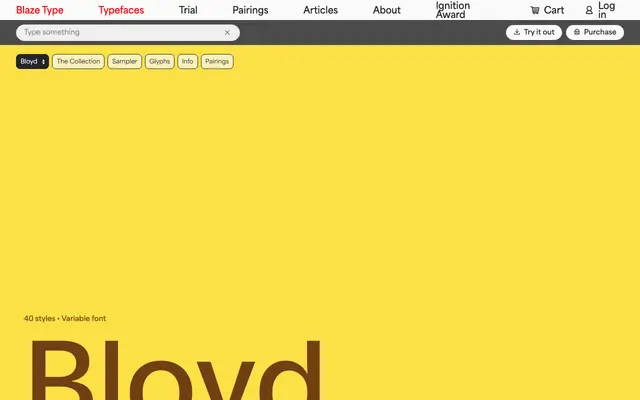
Bloyd specimen from Blaze Type
A three-width grotesque from Blaze Type spanning Normal, Condensed and Compressed cuts across eight weights with matching italics and variable font support.
Forty styles cover three distinct width families — Normal, Condensed and Compressed — each running from ExtraLight to Black with full italic companions. Variable font support runs across the entire collection, making it practical for responsive and editorial contexts where width and weight need to shift fluidly. The range of widths gives it flexibility across tight column settings and large display work alike.
Bloyd presents as a contemporary grotesque sans-serif with no visible serif or slab characteristics, offered across three width variants — Normal, Condensed and Compressed — suggesting a utility-focused grotesque family.